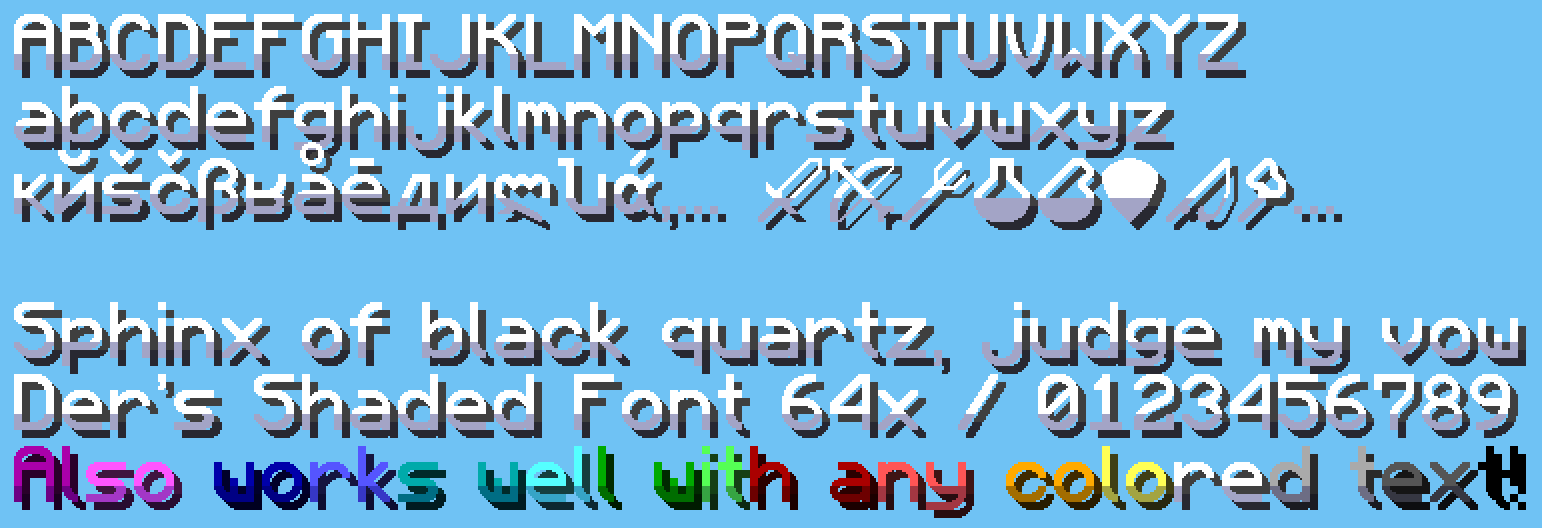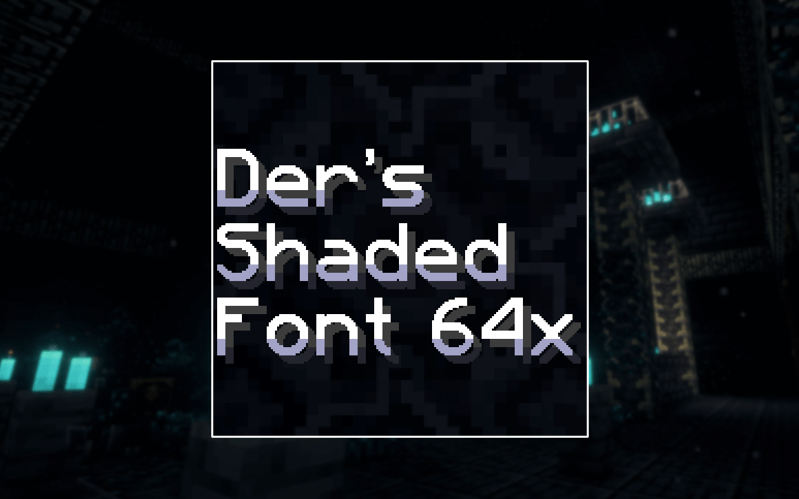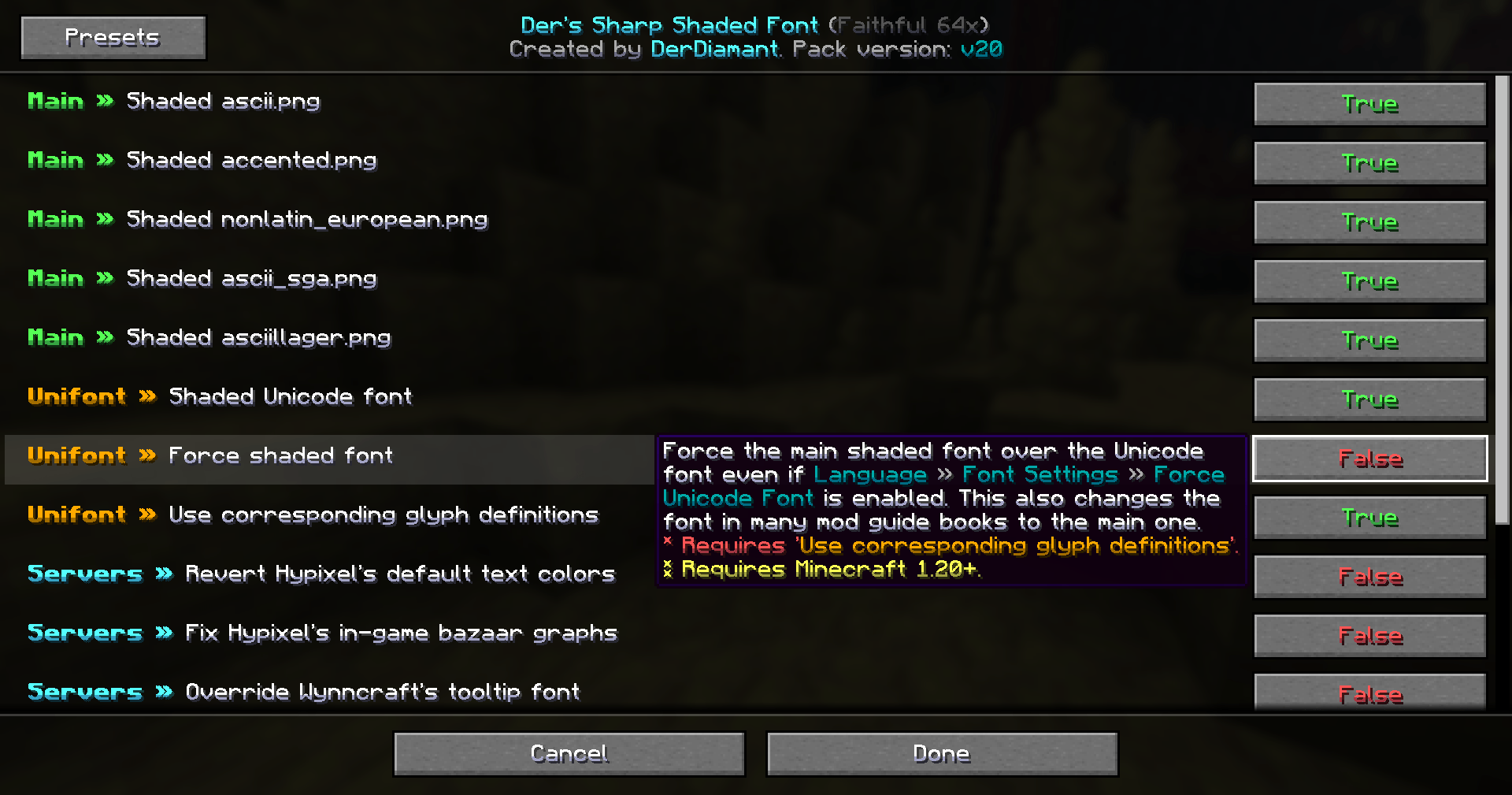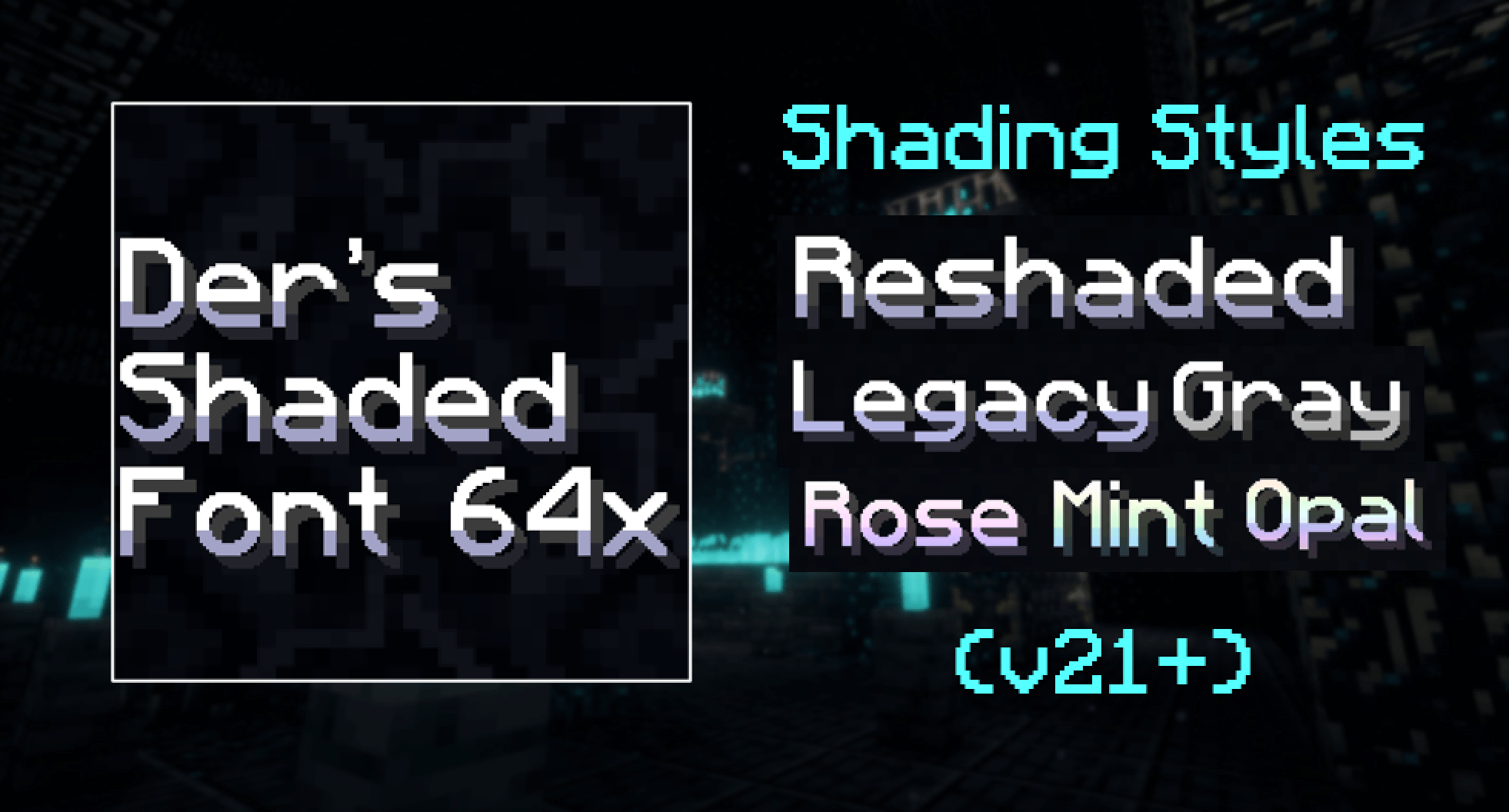
Der's Sharp Shaded Font (Faithful 64x)
This resource pack simply modifies Faithful 64x's Font by adding targeted colored shading to the lower parts of its characters, giving the game a more refreshing/visually appealing look! Supports 10,000+ characters, various languages, many symbols and is available for a wide range of game versions!
A 64x version of Der's Shaded Font was originally not planned but eventually got created due it getting increasingly requested. The 64x version will follow the versioning from the 32x and 16x version and receive synchronized updates going forward. As a result, earlier development versions have been skipped for 64x specifically, due to it being created at a later date.
All of Faithful 64x's font is currently supported and shaded*, consisting of:
Beyond that, the latest releases also added:
• 8,000+ shaded glyphs across 36 unicode pages*
• Extensive language & symbol support*
• Corresponding font provider files allowing for individual tweaks*
• Extra options for narrow spacing, forced shaded font & mod guide book support
• Support for Wynncraft (item tooltip font*)
• Support for Hypixel (used unicode*, bazaar graph fix & revert text color changes)
• Config option to apply legacy shading
Q4: Why do a few specific glyphs/symbols have no shading?
A4: For affected unicode glyphs (also see Q5), editing those with a resourcepack causes a visual double-struck issue under certain circumstances, so shading for those has been removed in v14-16+, fixing that issue. For some other symbols it has been a design choice to improve readability. Lastly, custom icons of popular servers will not be supported due to their licensing.
Q5: What languages are not supported?
A5: Chinese, Japanese, Kannada & Korean currently have no shaded glyphs. This is due to the double-struck issue mentioned above. All other languages not listed here have shaded glyphs!